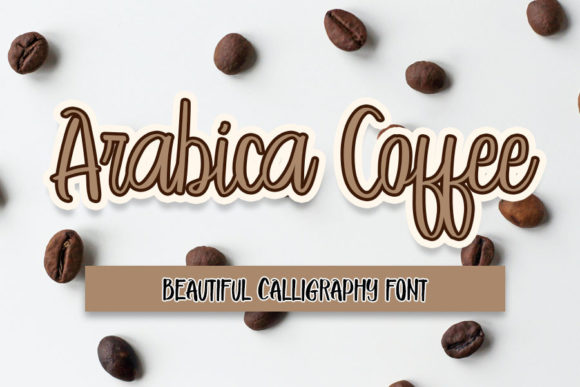
Dive into the world of Arabica Coffee, a captivating script font that dances across the digital canvas, leaving a trail of elegance and charm. Created by the talented shiddiq.art, this font is a masterpiece designed to capture hearts and elevate your creative projects.
With its graceful curves and a touch of playfulness, Arabica Coffee is the perfect choice for adding a personal touch to your designs. Its casual yet elegant demeanor makes it suitable for a wide range of applications, from whimsical children's invitations to sophisticated wedding stationery.
Let your imagination run wild as you explore the endless possibilities that Arabica Coffee offers. Its versatility knows no bounds, allowing you to create stunning logos that exude professionalism, eye-catching headings that demand attention, and beautiful t-shirts that reflect your unique style.
Picture this: your child's birthday invitation adorned with the whimsical charm of Arabica Coffee, inviting guests into a world of wonder and excitement. Or, envision your wedding invitations, each one a work of art, elegantly penned with Arabica Coffee's enchanting script, setting the tone for a magical celebration.
Arabica Coffee is more than just a font; it's an expression of your creativity, a reflection of your personal style. It's the perfect tool to make your designs stand out, to leave a lasting impression on your audience, and to create a visual experience that captivates and inspires.